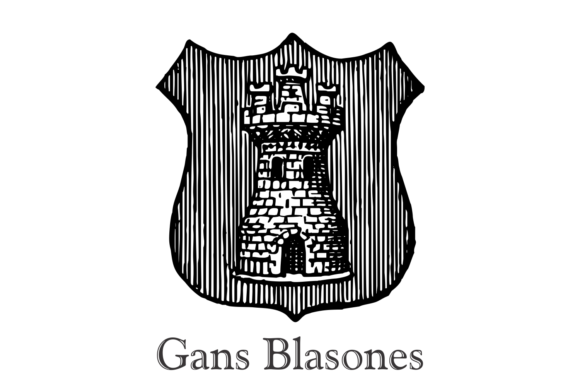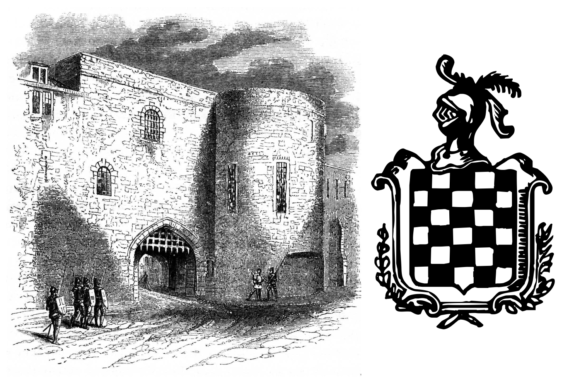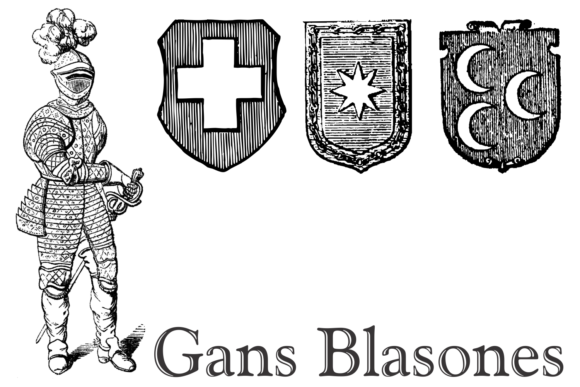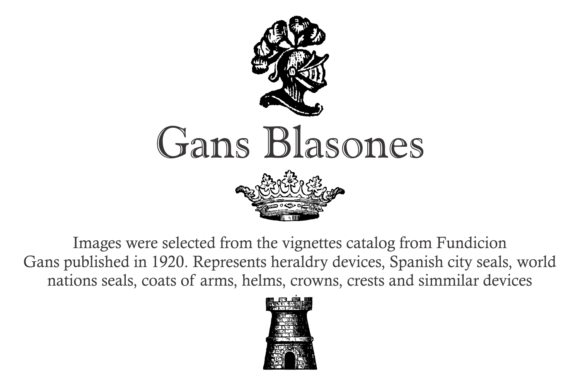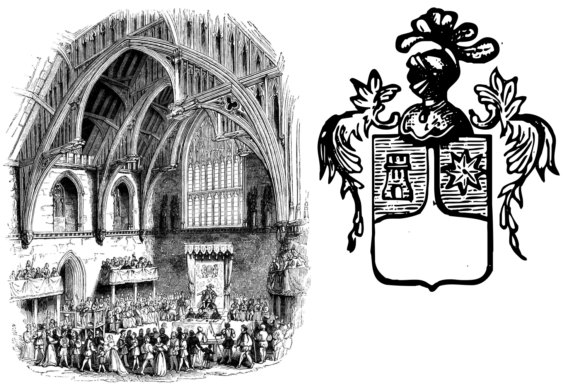
Gans Blasones Font: A Heraldry Designer’s Treasure Trove
The Gans Blasones Font is a unique and fascinating typographic collection that has been a treasured find for designers and crafters alike. This font features a wide range of heraldry devices, including Spanish city seals, world nations seals, coats of arms, helms, crowns, crests, and more. The images were carefully selected from the vignettes catalog of Fundicion Gans, published in 1920, making it a valuable resource for those looking to add a touch of history and elegance to their designs.
History of Gans Blasones Font
The Gans Blasones Font has its roots in the early 20th century, when Fundicion Gans, a renowned foundry, published its catalog of vignettes in 1920. This catalog featured an extensive collection of heraldry devices, which were meticulously crafted to represent various coats of arms, city seals, and national emblems. The Gans Blasones Font was created by digitizing these vintage images, allowing designers to easily incorporate them into their work.
What Makes Gans Blasones Font Special?
The Gans Blasones Font stands out from other typographic collections due to its exceptional quality and historical significance. Each image in the font has been carefully crafted to showcase intricate details, making it perfect for designers who require high-resolution graphics. The font’s versatility is another significant advantage, as it can be used for a wide range of projects, from logo design and branding to crafting and heraldry.
Key Features of Gans Blasones Font
- Heraldry Devices: The font features an extensive collection of heraldry devices, including coats of arms, helms, crowns, crests, and more.
- Spanish City Seals: The font includes a range of Spanish city seals, providing designers with a unique opportunity to add a touch of history to their work.
- World Nations Seals: With a collection of world nations seals, designers can easily incorporate international emblems into their designs.
- Vintage Quality: The images in the Gans Blasones Font have been carefully digitized from the original 1920 catalog, ensuring a unique and authentic look.
Using Gans Blasones Font in Design Projects
The Gans Blasones Font can be used in a variety of design projects, from logo design and branding to crafting and heraldry. Designers can use the font to create custom logos, icons, and graphics, while crafters can use the images to create unique scrapbooking pages, cards, and other paper crafts.
- Pay Attention to Details: The intricate details in the Gans Blasones Font are one of its standout features, so be sure to pay attention to these when using the font in your designs.
The Gans Blasones Font is a valuable resource for designers and crafters looking to add a touch of history and elegance to their work. With its extensive collection of heraldry devices, Spanish city seals, world nations seals, and more, this font is sure to inspire creativity and bring a unique touch to any design project. Whether you’re a professional designer or a hobbyist crafter, the Gans Blasones Font is an excellent addition to your toolkit.
Images of Gans Blasones Font
Here are some examples of the beautiful images included in the Gans Blasones Font: